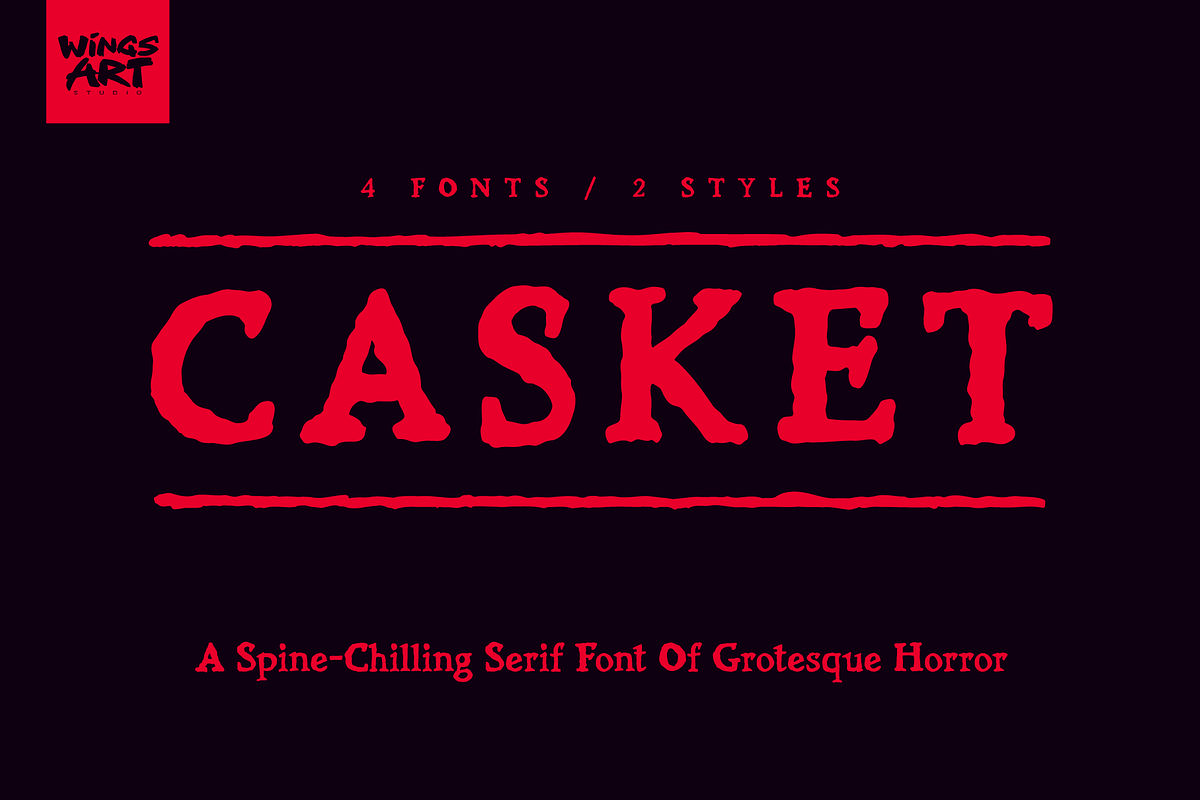
Casket – A Spine-Chilling Serif Font Free Download is a haunting and dramatic typeface crafted to bring eerie elegance and gothic flair to your dark-themed designs. Please note, you are required to purchase this font for commercial use. It is available for free download for testing and personal projects only.
With sharp serifs, vintage undertones, and a bone-chilling aesthetic, Casket is perfect for Halloween posters, horror movie titles, spooky invitations, gothic branding, book covers, and eerie merchandise. It’s bold, atmospheric, and full of mysterious personality.